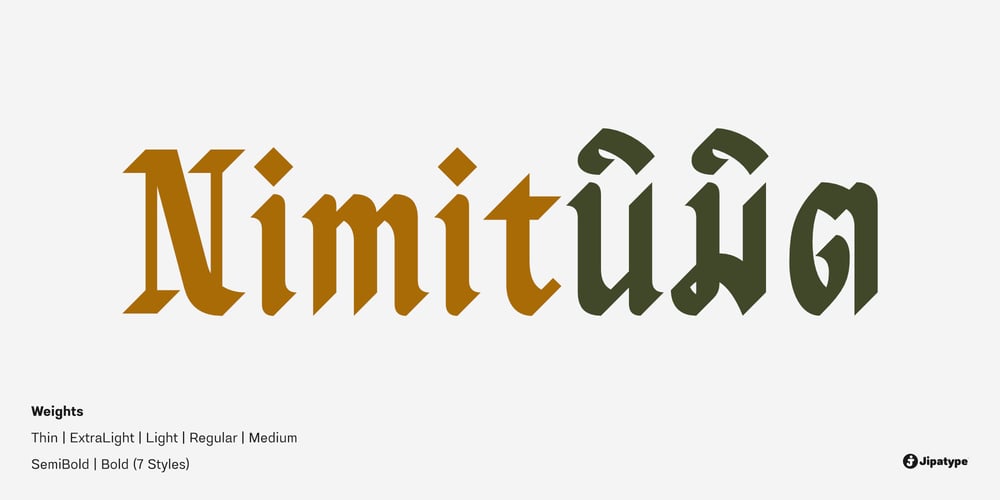
Nimit
Nimit font
Nimit Font Family was designed by Anupap Jaichumnan and published by Jipatype. Nimit contains 7 styles and family package options. Nimit is a typeface that mimics the style of writing with a broad-nib pen to create a simplified blackletter style. It is suitable for public relations media that communicate antiquity and mystique. This typeface consists of 7 variants, covering line weights from the thinnest to the boldest, supporting both Latin-1 and Thai character sets.